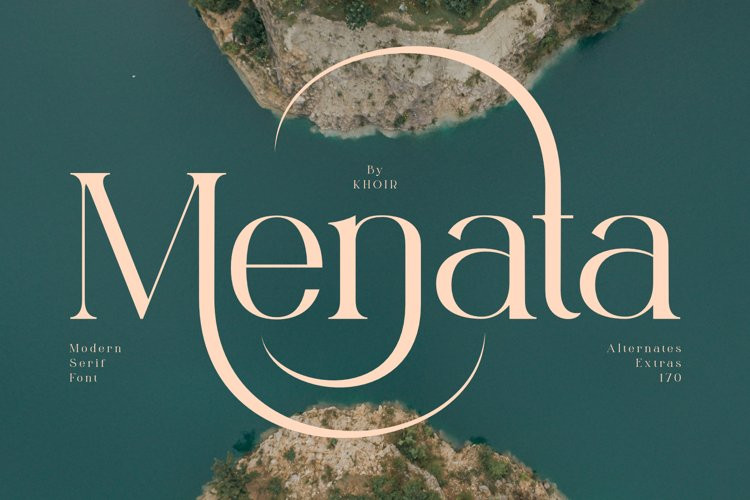
Menata Font
Menata FontIntroducing Menata – Serif classic Modern unique, in each letter there is a beautiful bond and relate to each other, This font is supported by special and multilingual alternatives that are quite complete, has 170 interesting alternatives making this font versatile and works well in various sizes . This font is perfect for logos, branding, designs, invitations, novels, books, magazines, labels, greeting/wedding cards. So what are you waiting for!